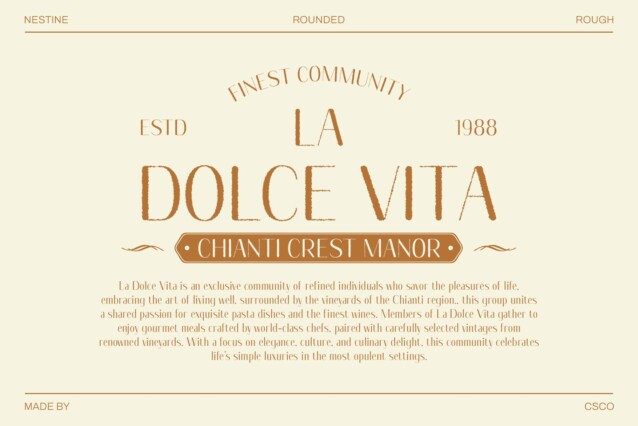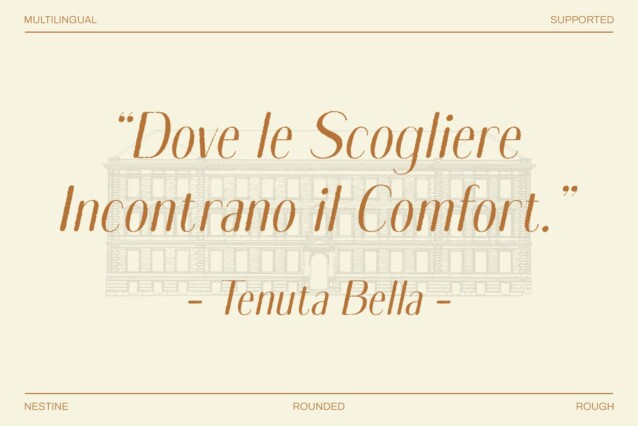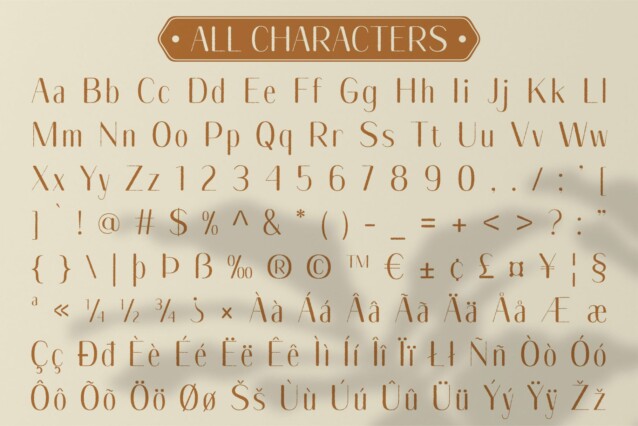
Nestine Rounded Rough Font
Nestine Rounded Rough Font is a modern sans-serif font that perfectly balances sleek, rounded shapes with a rugged, rough texture. Its clean lines and smooth curves offer a sophisticated, contemporary aesthetic, while the rough edges introduce a unique, raw quality, making this font ideal for designs that need a touch of elegance with a bit of grit.